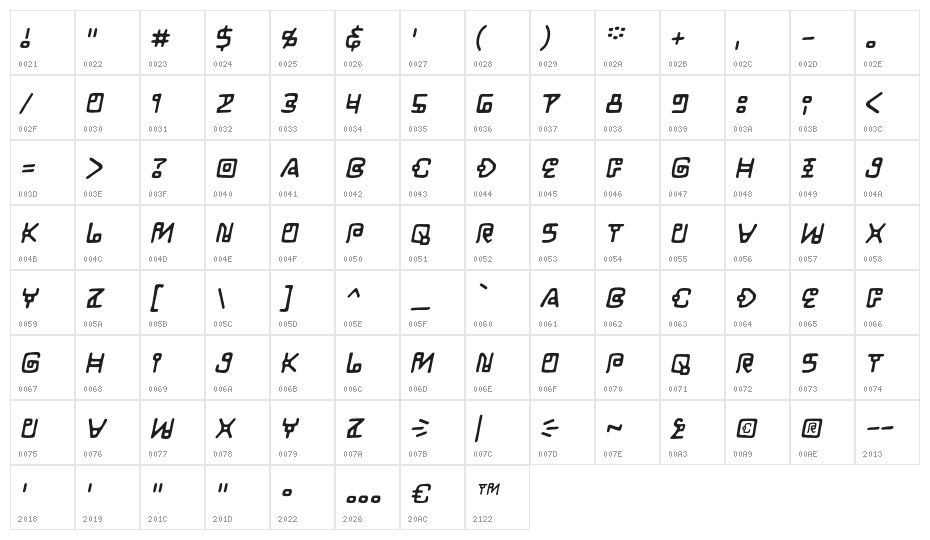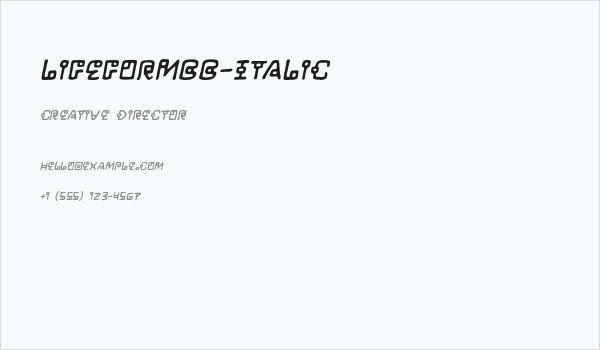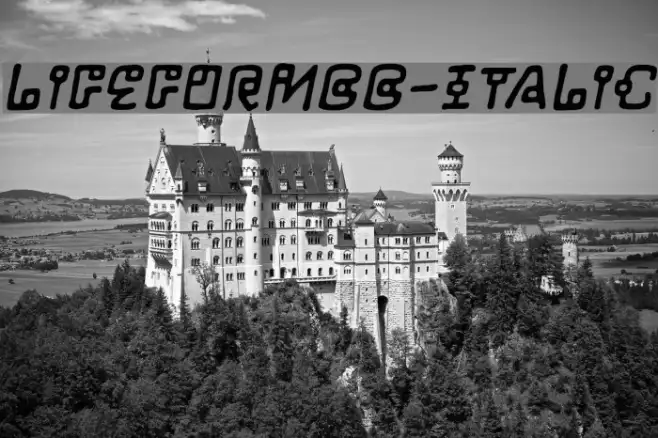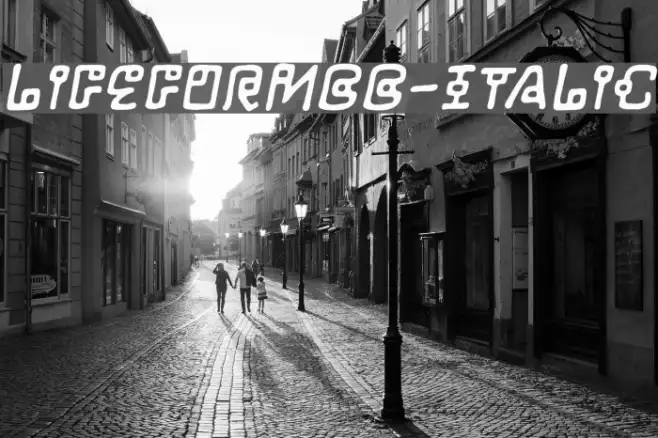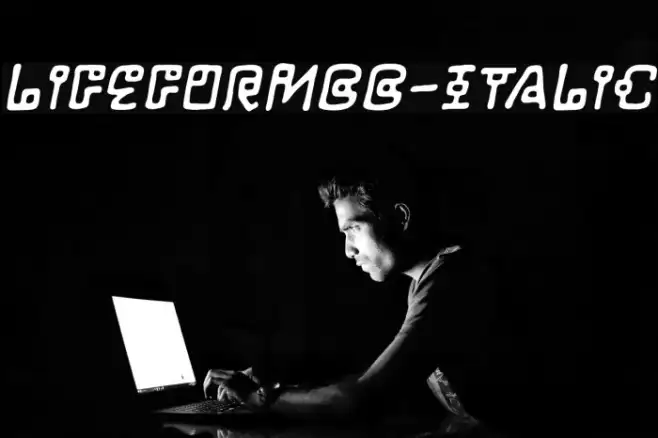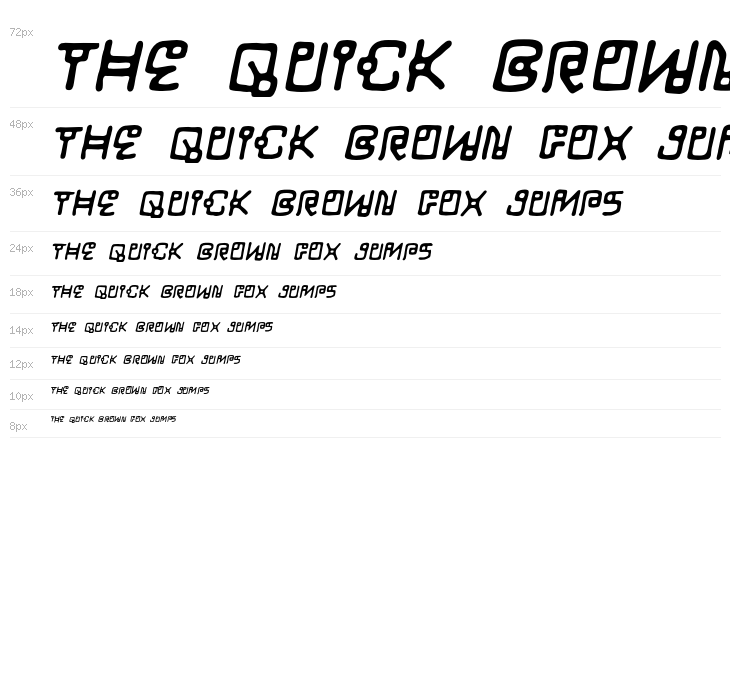
LifeFormBB-Italic Font
LifeFormBB-Italic Description
This font exhibits a futuristic and playful style with a unique, rounded design. The characters are bold and slightly italicized, giving them a dynamic appearance. The strokes are consistent in thickness, providing a medium contrast that enhances readability while maintaining a distinctive look. The letters have a slightly condensed width, contributing to a compact and efficient use of space. The character spacing is normal, ensuring clarity and legibility. This font's overall style is modern and decorative, making it suitable for creative and innovative projects.
| Proposed Projects | Ideal for sci-fi themed designs, video game titles, tech branding, and creative posters. |